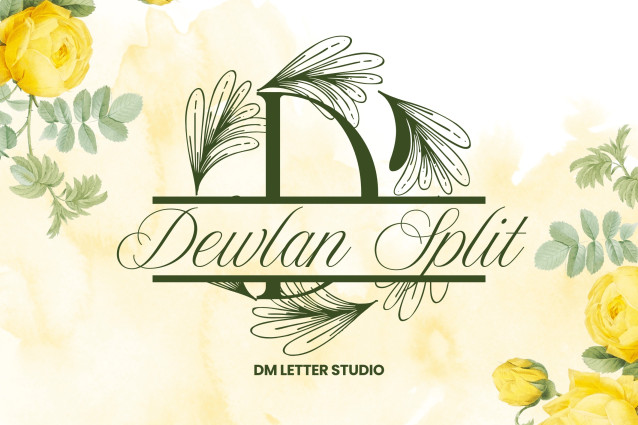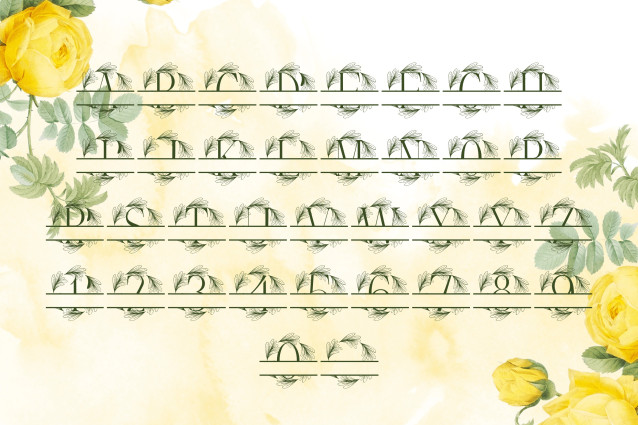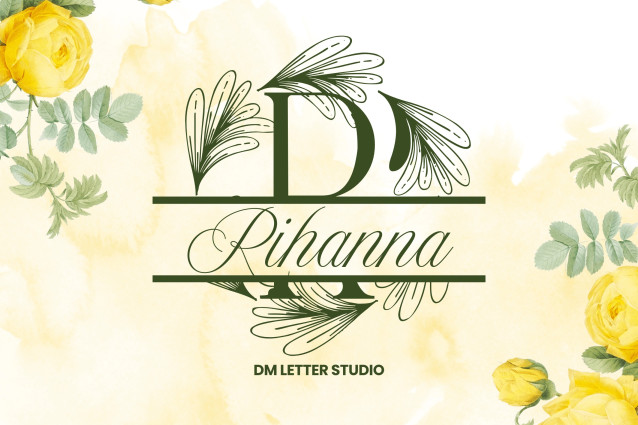
Dewlan Font
Dewlan Font is a sophisticated serif monogram font that combines timeless elegance with subtle nature-inspired detailing. Each uppercase letter is enriched with hand-drawn foliage elements, creating a refined, organic aesthetic perfect for wedding monograms, high-end branding, Cricut crafts, and personalized stationery.